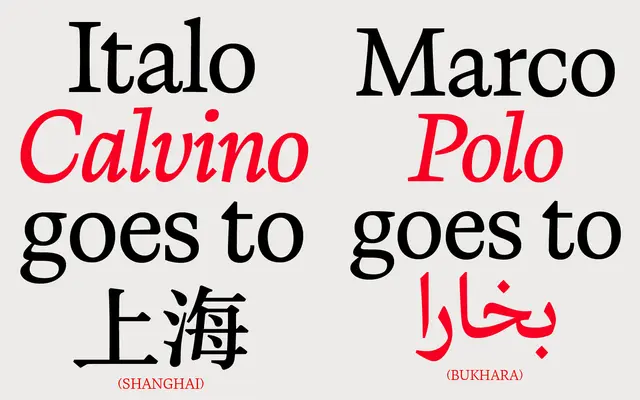
Calvino Arabic
Zetafonts · Andrea Tartarelli · 2024
The Arabic counterpart to Zetafonts' Calvino family, blending traditional Arabic calligraphic rhythm with a clean, modern editorial voice across four weights and matching italics.
Designed by Andrea Tartarelli and released in 2024, Calvino Arabic draws on Italo Calvino's Six Memos for the Next Millennium as a conceptual framework, aiming for clarity and fluidity in equal measure. The family runs to eight styles from Regular to Extrabold with italic companions, supported by two variable fonts covering weight axes in both roman and italic. Coverage spans Arabic, Latin and Cyrillic across 205 languages and 2031 glyphs, with OpenType features including old-style figures, fractions and stylistic sets.
A multi-script humanist sans spanning Arabic and Latin, designed with calligraphic fluidity balanced against modern clarity; the Arabic forms honour traditional calligraphy while aligning with the contemporary proportions of the Latin Calvino family.